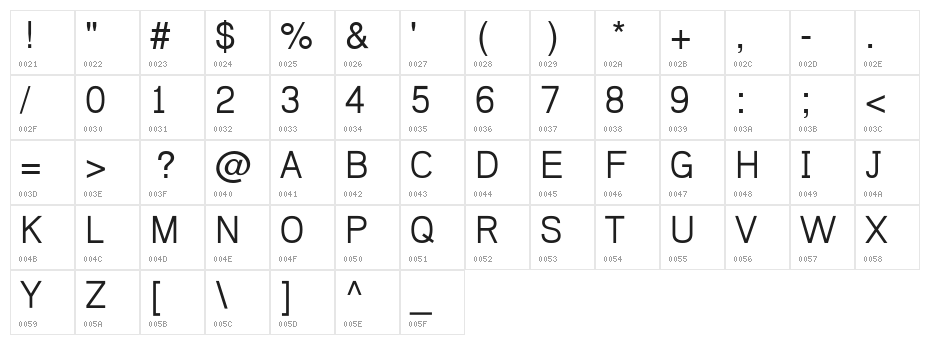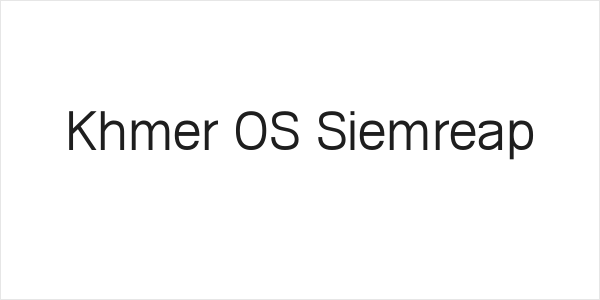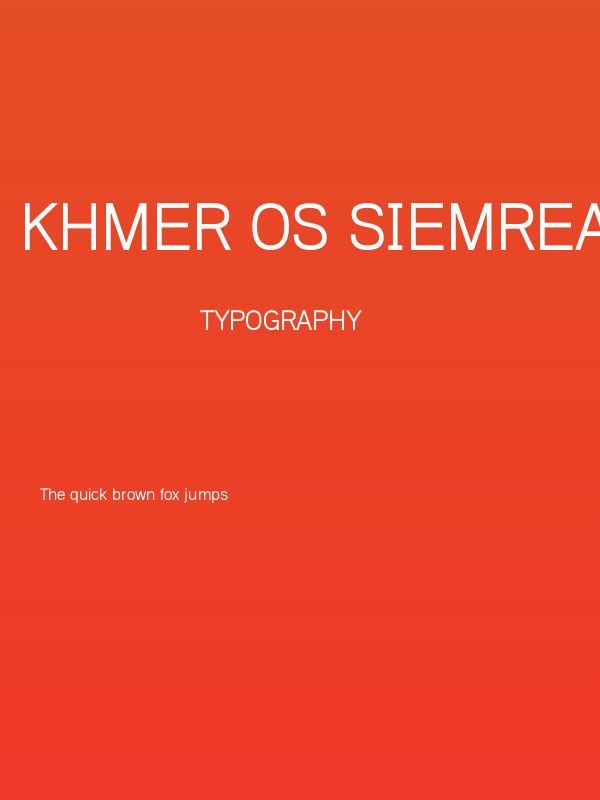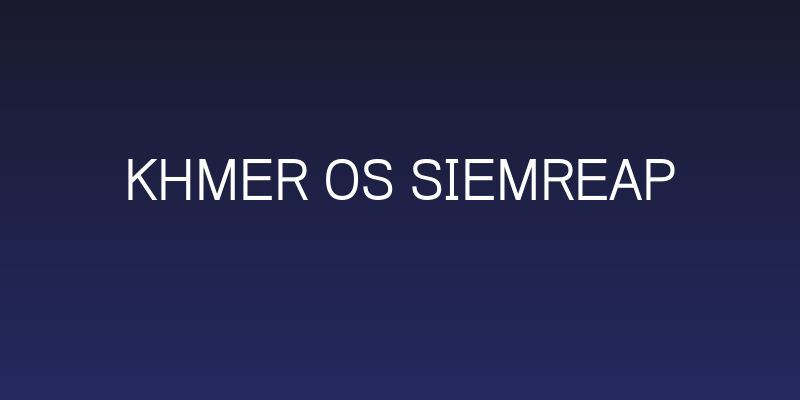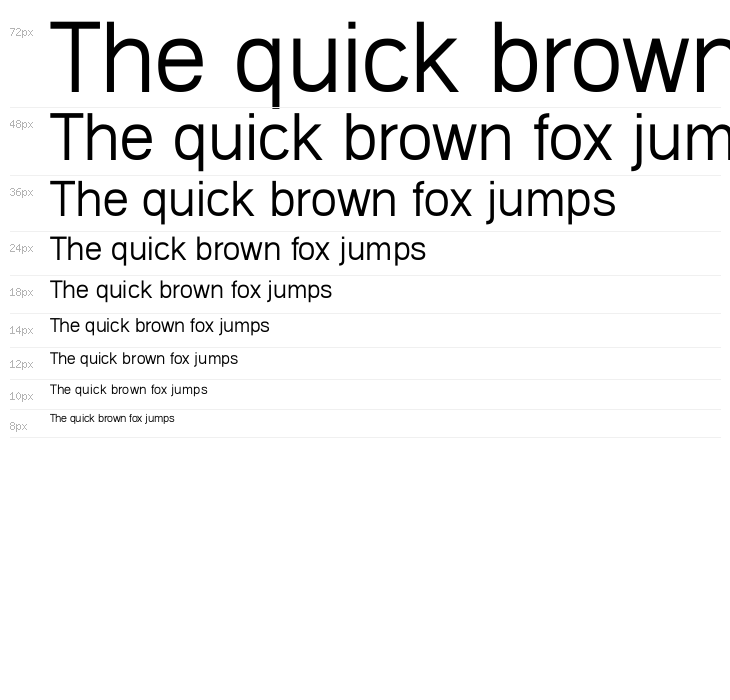
Khmer OS Siemreap Font
Khmer OS Siemreap Description
This font features a clean and modern sans-serif style with uniform stroke widths, providing a balanced and neutral appearance. The characters are well-proportioned, with a slightly rounded feel that adds a touch of friendliness to the overall design. The uppercase letters are bold and assertive, while the lowercase letters maintain a consistent height, ensuring readability. The numerals are clear and distinct, making them suitable for various applications. Special characters are designed to complement the alphabet, maintaining the font's cohesive look. This font's simplicity and clarity make it versatile for both digital and print media.
| Proposed Projects | Ideal for web design, branding, advertising, and editorial layouts. |